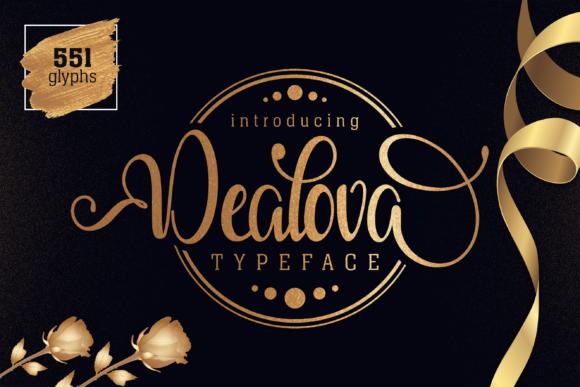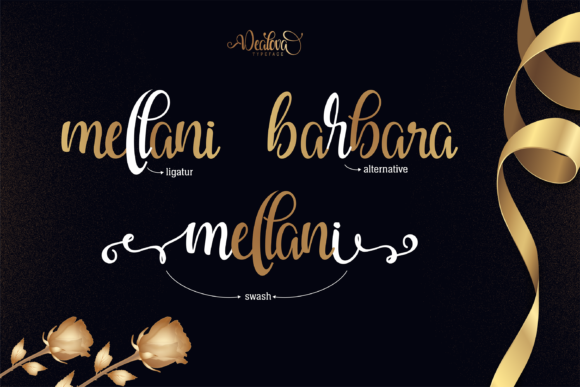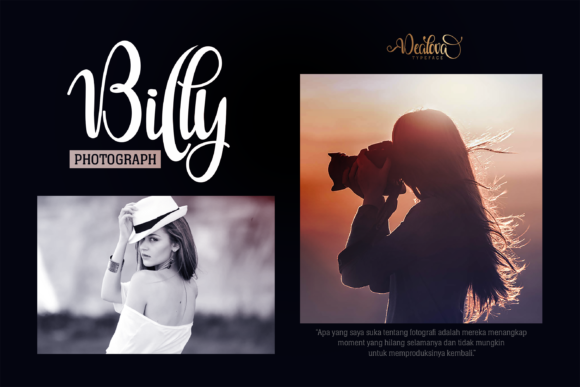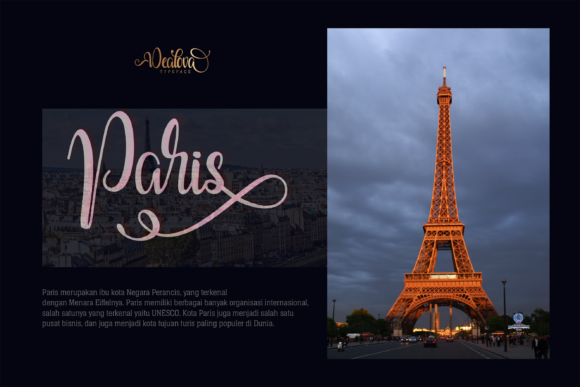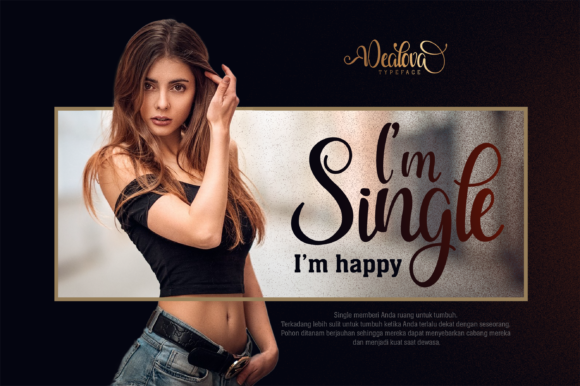
Dealova Font
About Dealova Font
The Dealova is a fresh & modern script font. It has a handmade calligraphy style and includes amazing decorative characters.
It’s perfect for invitations, greeting cards, branding materials, business cards, quotes, posters, logos and more!!